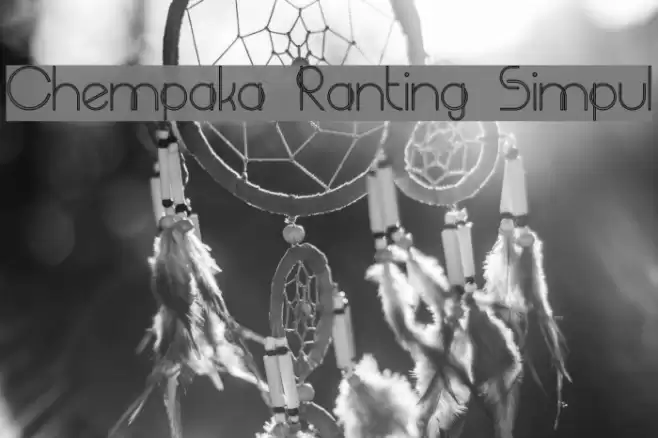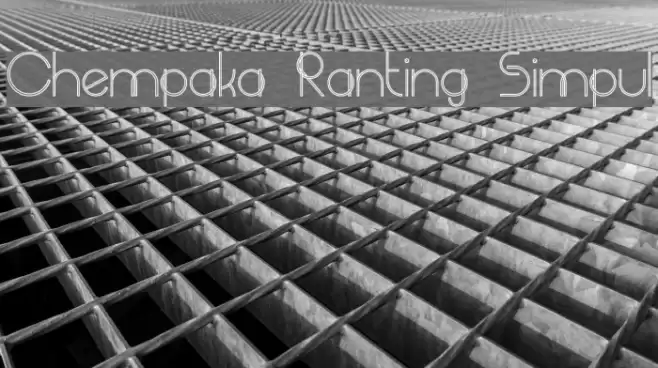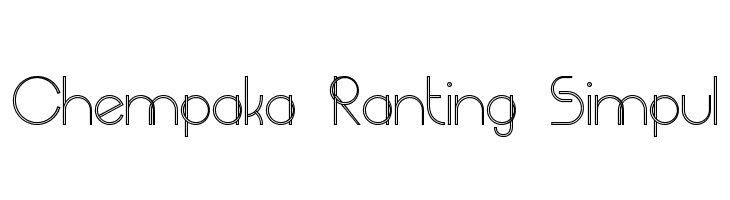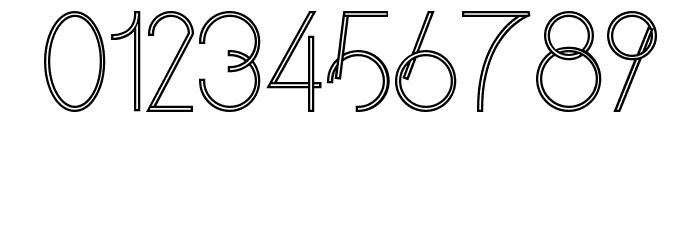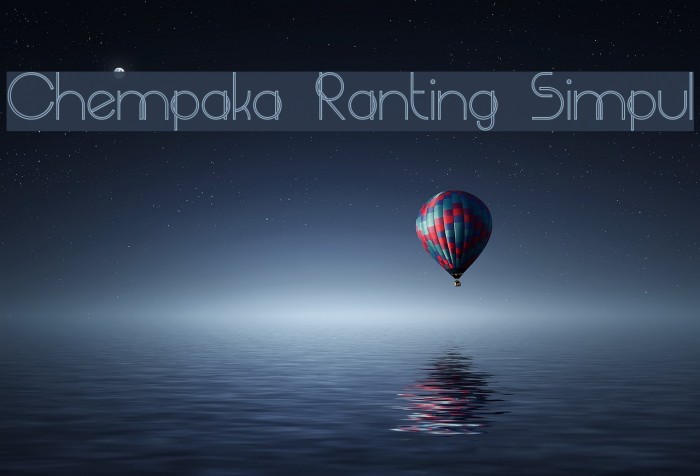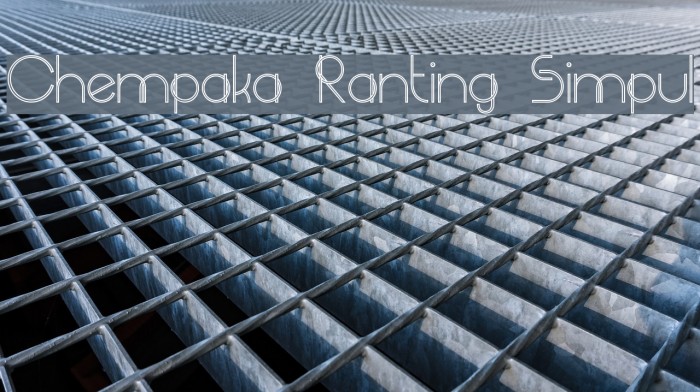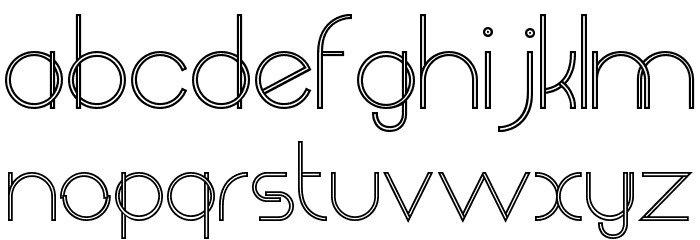
Chempaka Ranting Simpul Font
Chempaka Ranting Simpul Description
This font features a unique and modern design with a geometric and linear style. The characters are outlined with a double line structure, giving them an open and airy appearance. The uppercase and lowercase letters maintain a consistent height, creating a harmonious and balanced look. The numerals follow the same design principles, ensuring uniformity across all characters. The font's clean lines and minimalistic approach make it suitable for contemporary design projects that require a touch of elegance and sophistication.
A modern, geometric font with outlined characters and a linear style from Uncategorized fonts.